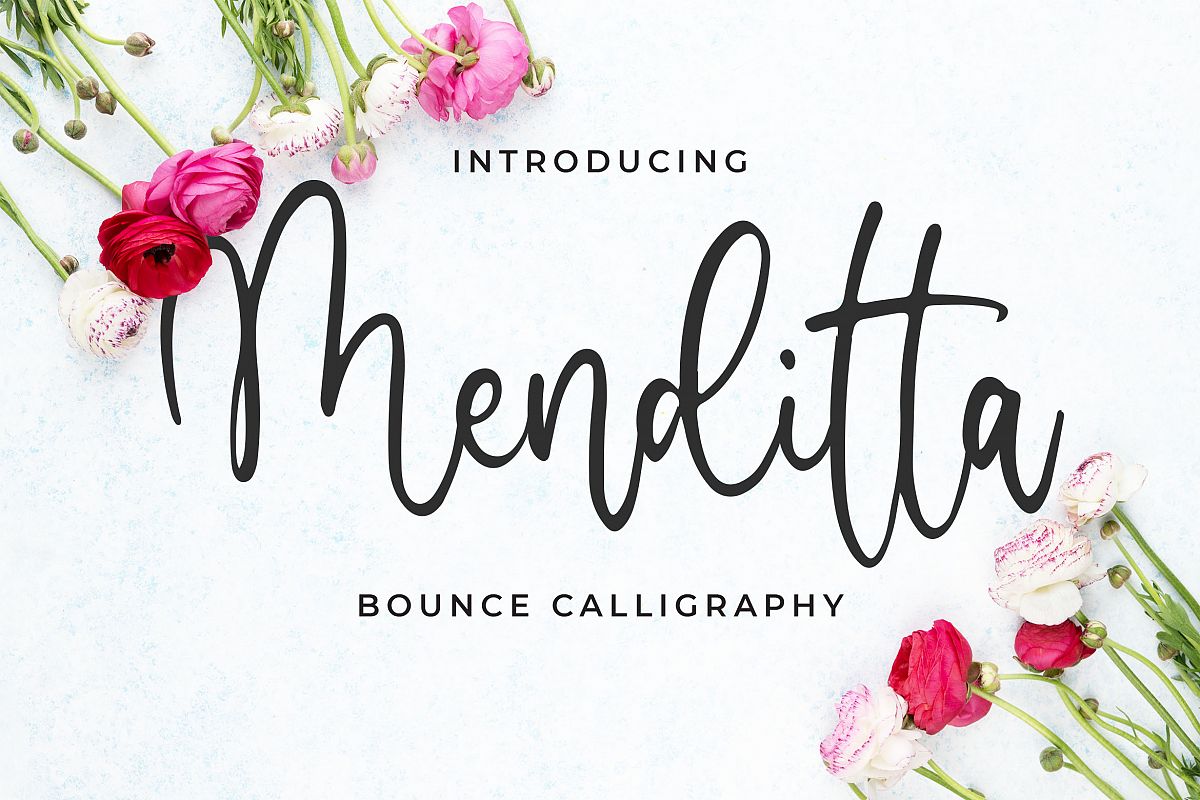
Introducing of our new product the name is Menditta Bounce Calligraphy Font. Menditta made by brush pen into digital this font is a Feminine theme very good for logo, signature, poster, fashion, quote poster, flyer, landing page etc.